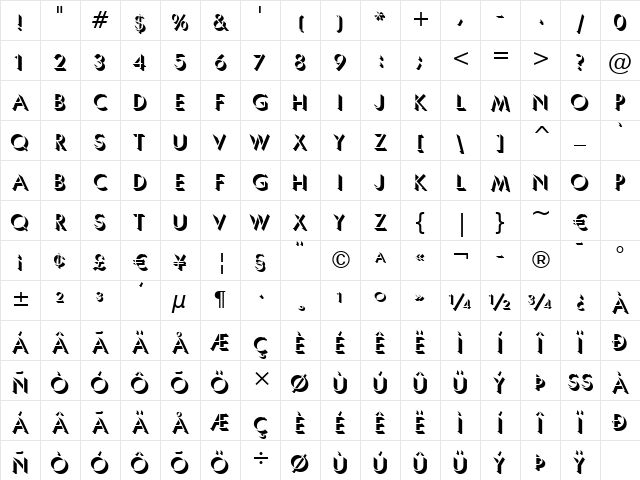
Umbra BT Regular
Umbra BT Family
Umbra BT Regular
Design Context for Umbra BT
Umbra BT is a composed and adaptable typeface that performs quietly and consistently across a wide range of design contexts.
Pro Tip: Use Umbra BT in both headline and body roles to test its range before committing to a single application.